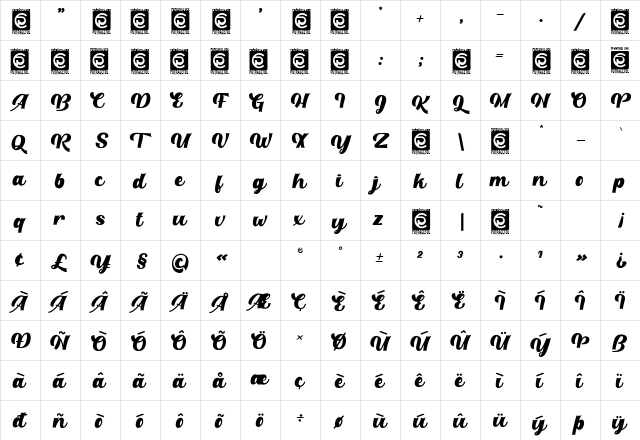
Retroparty Regular
Design Context for Retroparty Typeface
Retroparty wears its vintage influences proudly, with letterforms that recall mid-century signage, classic packaging, and nostalgia-driven design.
Font Pairing: Combine Retroparty with a simple slab or neutral sans — period-accurate companions reinforce the vintage feel without competing for attention.
Pro Tip: Lean into Retroparty's period character by pairing it with aged paper textures, muted colour palettes, and vintage illustration styles.